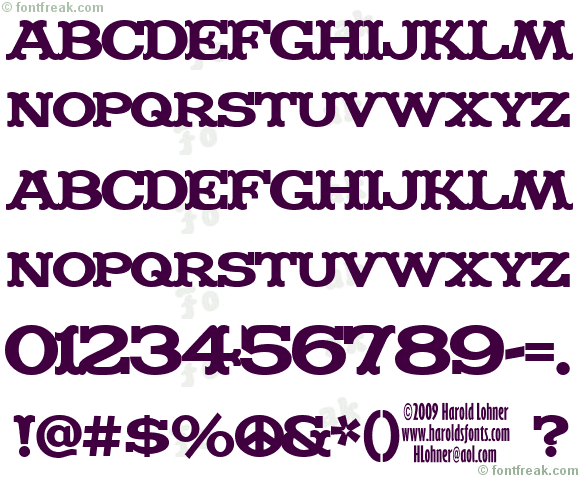
Madfont Thorns
About Madfont Thorns
Madfont Thorns, designed by Harold Lohner, is a decorative display font that captures a playful and whimsical essence, inspired by the iconic Mad magazine logo. This font is characterized by its bold stroke weight and unique, jagged edges that evoke a sense of fun and creativity. The contrast between the thick and thin parts of the letters creates a dynamic visual appeal, while the spacing is generous enough to maintain readability even in larger text settings.
This font serves a variety of creative applications, making it an excellent choice for graphic designers and content creators alike. Its quirky style is perfect for designing eye-catching movie posters, vibrant flyers for events, or attention-grabbing restaurant menus. Additionally, Madfont Thorns can be effectively used in children’s book covers, where its playful nature can resonate with younger audiences. Small business owners looking to infuse personality into their branding will find this font particularly appealing as well.
The target audience for Madfont Thorns includes graphic designers seeking to add a unique flair to their projects, small business owners wanting to stand out in a competitive market, and content creators who require an engaging typeface that can capture the attention of their viewers.
What sets the Madfont Thorns font apart is its distinctive character and versatility, making it an ideal choice for projects that demand a touch of creativity and whimsy. Its freeware license allows designers to incorporate this font into their work without the need for a financial commitment, making the Madfont Thorns font free download an attractive option for anyone looking to enhance their design toolkit. This font’s playful yet bold aesthetic ensures it will leave a lasting impression on any audience.